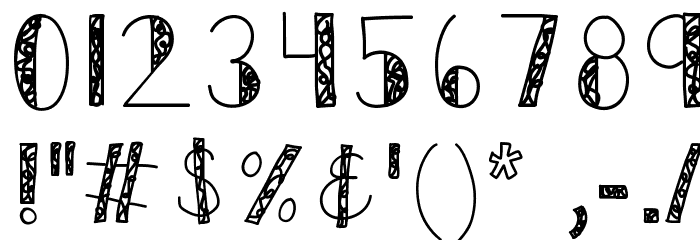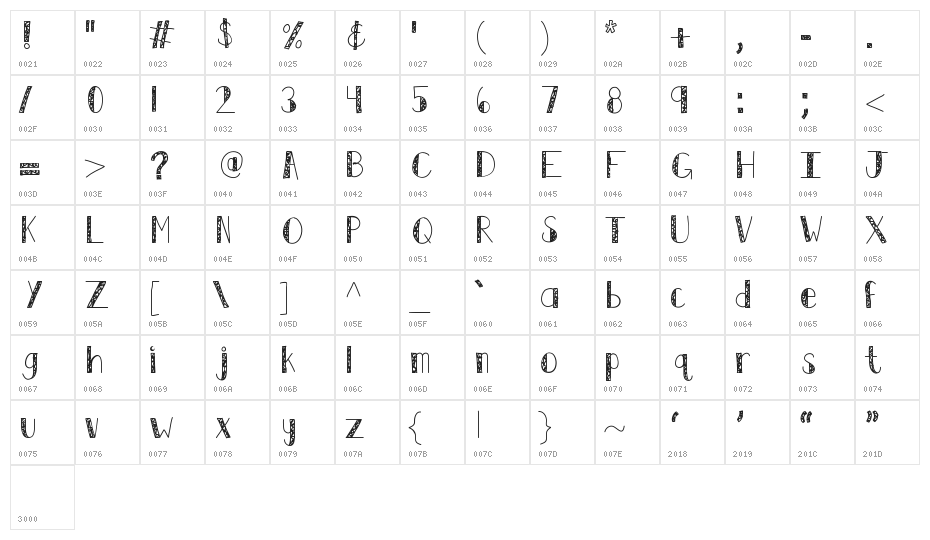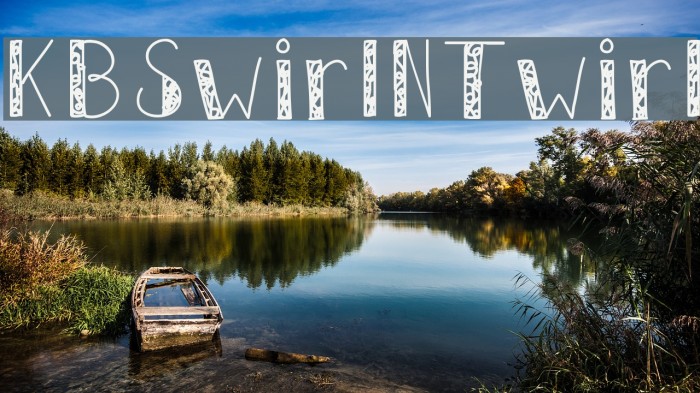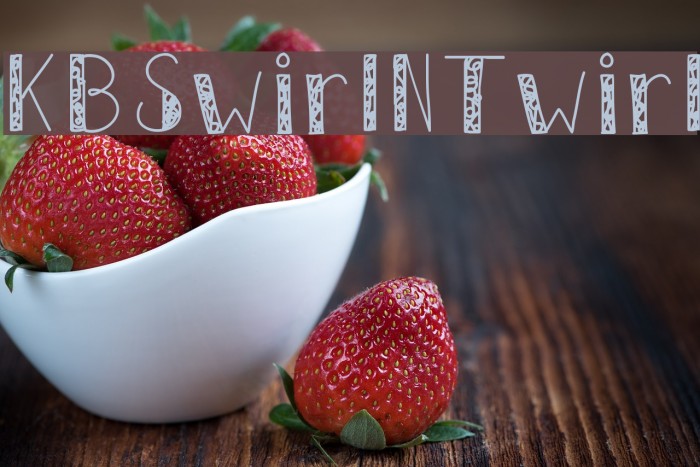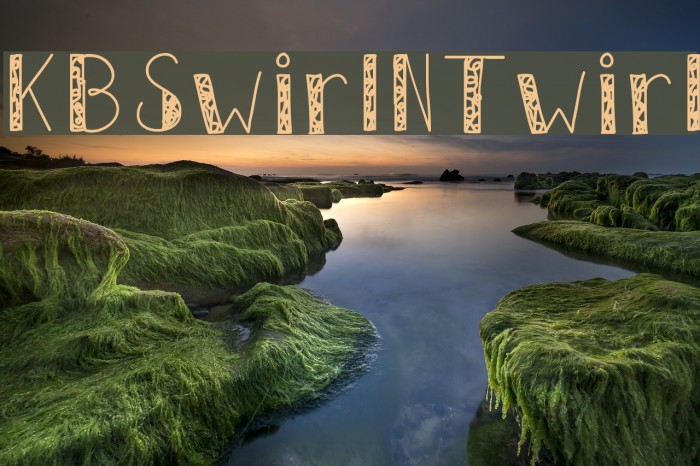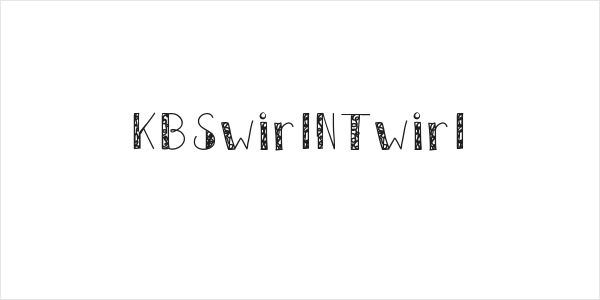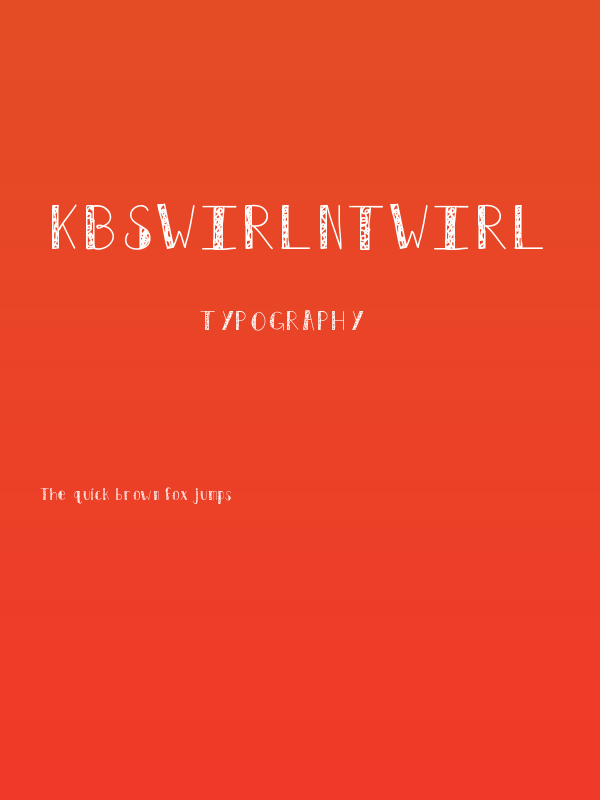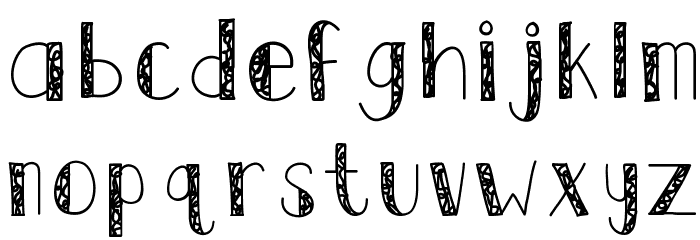
KBSwirlNTwirl Font
KBSwirlNTwirl Description
This font features a playful and whimsical design with a hand-drawn appearance. Each character is filled with intricate swirl and twirl patterns, giving it a unique and artistic look. The uppercase letters are bold and prominent, while the lowercase letters maintain a consistent style with slightly less emphasis. Numbers and special characters follow the same decorative pattern, ensuring a cohesive look across all elements. The font's overall style is both fun and creative, making it ideal for projects that require a touch of personality and flair.
| Proposed Projects | Ideal for children's books, creative posters, greeting cards, and playful branding materials. |